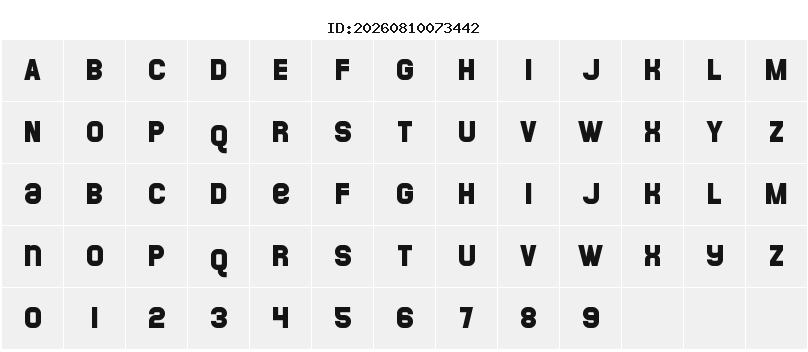
• Font Name: POE Unicase Condensed
• Description: A unicase, bespoke typeface for the POE, POE Unicase, made by Daniel Lyons (DLE TV).
About POE Unicase Condensed.ttf
POE Unicase Condensed.ttf is a modern, elegant sans-serif font designed for ultimate readability and visual harmony. Perfect for branding, headlines, web design, and print materials.